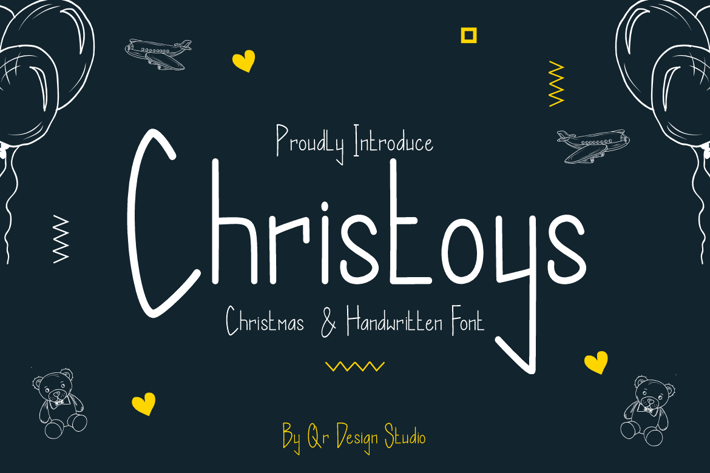
Christoys - Playful Font
Christoys - Playful Font is a bold and authentic display font.
The font is suitable for any branding project like poster, kids, logo, sport, and many more.